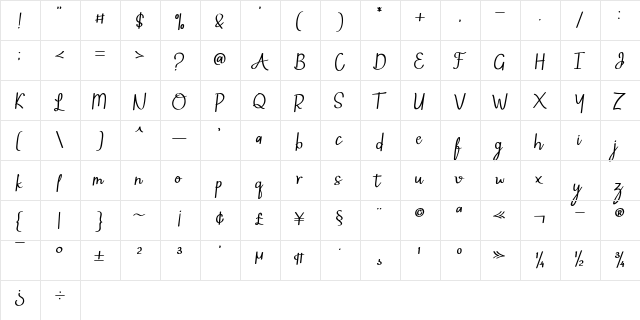
Mintlic Regular
| Designer | Vilogsign 2018 |
Design Context for Mintlic Typeface
Mintlic is a composed and adaptable typeface that performs quietly and consistently across a wide range of design contexts.